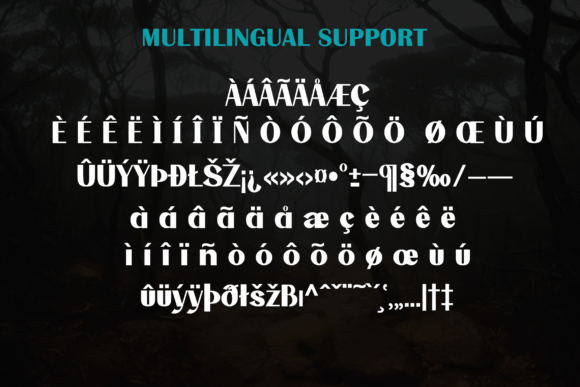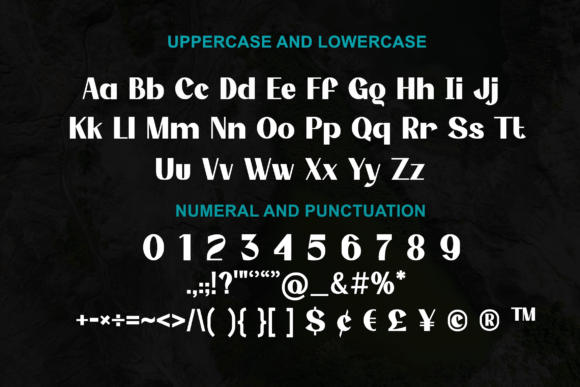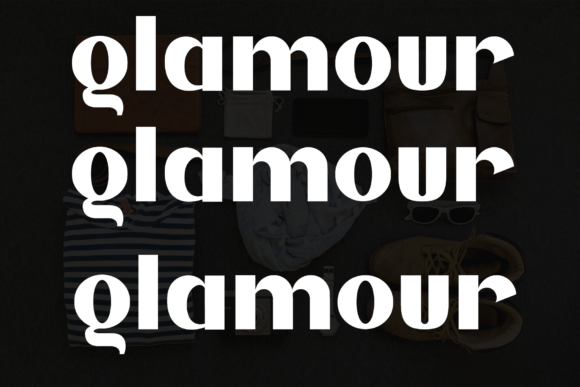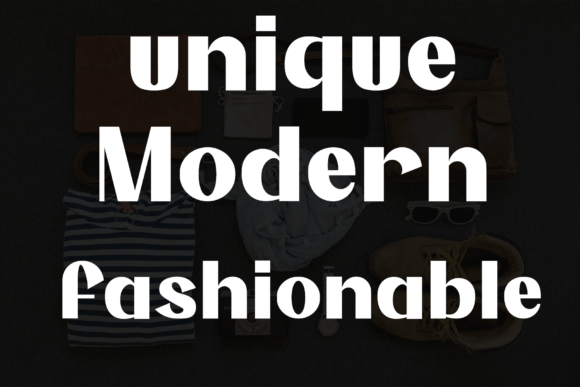
Introducing Geography Font: A Modern Sans Serif Beauty
Are you tired of using the same old fonts in your designs? Look no further than Geography Font, a stunning sans serif font inspired by the beauty of nature. This modern font is perfect for designers and crafters looking to add a touch of elegance and sophistication to their work.
What is Geography Font?
Geography Font is a carefully crafted sans serif font that draws inspiration from the natural world. With its clean lines and modern aesthetic, this font is perfect for a wide range of design needs, from branding and logos to urban design and advertising. Whether you’re working on a book cover, a special event, or a headline, Geography Font is sure to make a statement.
Key Features of Geography Font
- Modern and Beautiful Design: Geography Font boasts a sleek and modern design that’s perfect for creating stunning visuals.
- Versatile: This font is suitable for a wide range of design needs, including branding, logos, urban design, modern advertising design, book/cover titles, special events, adventures, headlines, clothing, and more.
- Easy to Read: The clean lines and simple shapes of Geography Font make it easy to read, even at small sizes.
- High-Quality: This font is designed with high-quality craftsmanship in mind, ensuring that it looks great in any design.
Uses for Geography Font
Geography Font is an incredibly versatile font that can be used in a wide range of design projects. Here are just a few ideas to get you started:
- Branding and Logos: Create a stunning brand identity with Geography Font, perfect for businesses and organizations looking for a modern and sophisticated look.
- Urban Design: Use Geography Font to create eye-catching urban designs, such as posters, flyers, and billboards.
- Modern Advertising Design: Make a statement with Geography Font in your modern advertising designs, from print ads to digital campaigns.
- Book/Cover Titles: Add a touch of elegance to your book covers and titles with Geography Font.
- Special Events: Create stunning event branding with Geography Font, perfect for weddings, conferences, and more.
- Adventures and Headlines: Use Geography Font to create eye-catching headlines and titles for adventure and travel-related designs.
- Clothing and Fashion: Add a modern touch to your clothing and fashion designs with Geography Font.
Why Choose Geography Font?
With so many fonts to choose from, why should you choose Geography Font? Here are just a few reasons:
- Unique and Modern Design: Geography Font offers a unique and modern design that’s sure to stand out in any design.
- Highly Versatile: This font can be used in a wide range of design projects, making it a great addition to any designer’s toolkit.
| Font Name | Geography Font |
| Author | Portype Studio |
In conclusion, Geography Font is a stunning sans serif font that’s perfect for designers and crafters looking to add a touch of modern elegance to their work. With its clean lines, simple shapes, and versatile design, this font is sure to become a favorite in your toolkit. So why wait? Download Geography Font today and start creating stunning designs that are sure to impress.